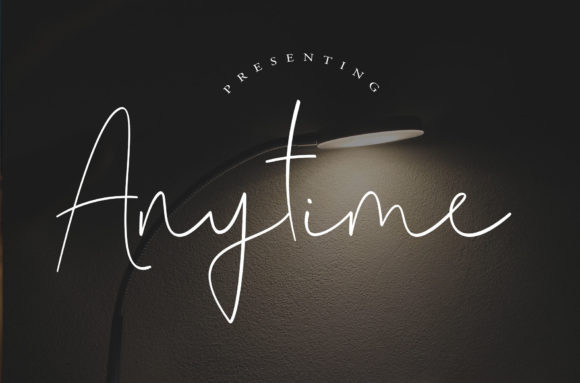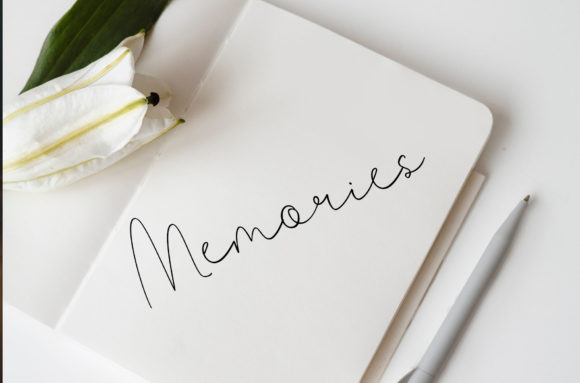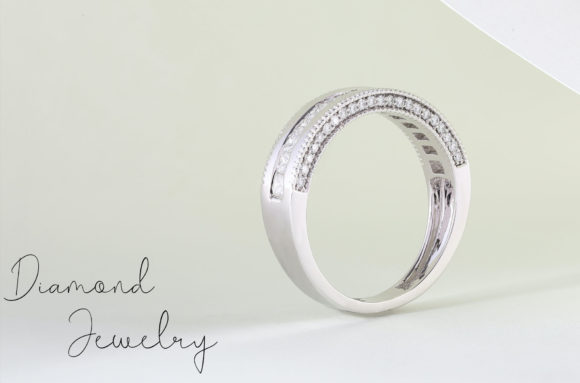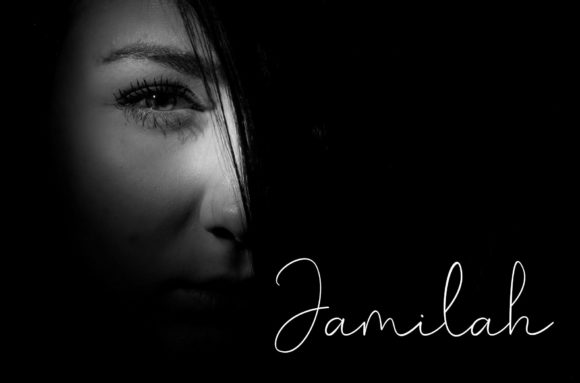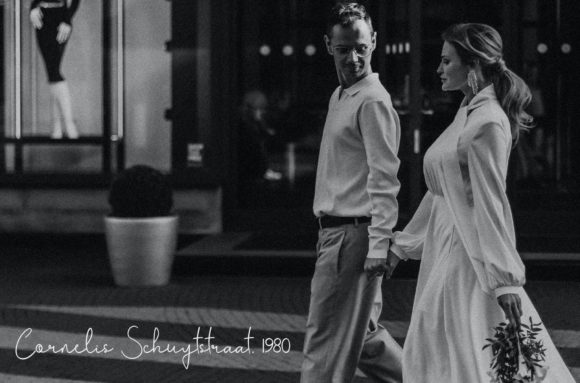
Anytime Font
About Anytime Font
Anytime is a contemporary calligraphy font that embodies both modernity and elegance. Its stylish and refined design, coupled with its special ligatures and alternates, make it a versatile choice for a range of creative projects, from wedding invitations to fashion-related designs.
One of the standout features of Anytime is its collection of beautiful ligatures and alternates. These artistic variations bring a unique and personalized touch to your text, allowing you to experiment with different styles and create visually captivating typography. Whether it’s a wedding invitation, a fashion card, or any other project, Anytime’s ligatures and alternates offer endless possibilities for customization.
The stroke of Anytime is particularly noteworthy, showcasing the meticulous attention to detail that went into its creation. The characters flow gracefully and smoothly, exuding a sense of sophistication that’s well-suited for upscale projects. The font’s clean lines and balanced forms ensure readability while adding a touch of luxury.
Anytime excels in the realm of wedding invitations. Its modern calligraphic style brings an air of romance and timelessness, making it an ideal choice for couples who want to create a special and memorable invitation suite. The ligatures and alternates allow for creative embellishments that elevate the overall design.
In the fashion world, Anytime shines as well. Whether it’s fashion cards, branding materials, or event promotions, the font’s classy calligraphy adds a touch of elegance and flair. The ligatures and alternates can be used to emphasize brand names, headlines, or other key design elements.
The fact that Anytime is PUA encoded further enhances its versatility. This encoding allows easy access to all the glyphs and swashes, making the design process smoother and more intuitive. It enables you to effortlessly incorporate the font’s unique features into your designs.
In summary, Anytime is a modern and classy calligraphy font that seamlessly blends contemporary style with timeless elegance. Its exquisite ligatures, alternates, and PUA encoding offer ample room for creativity and personalization. Whether for wedding invitations, fashion designs, or other creative endeavors, Anytime is a font that brings sophistication and charm to your projects.